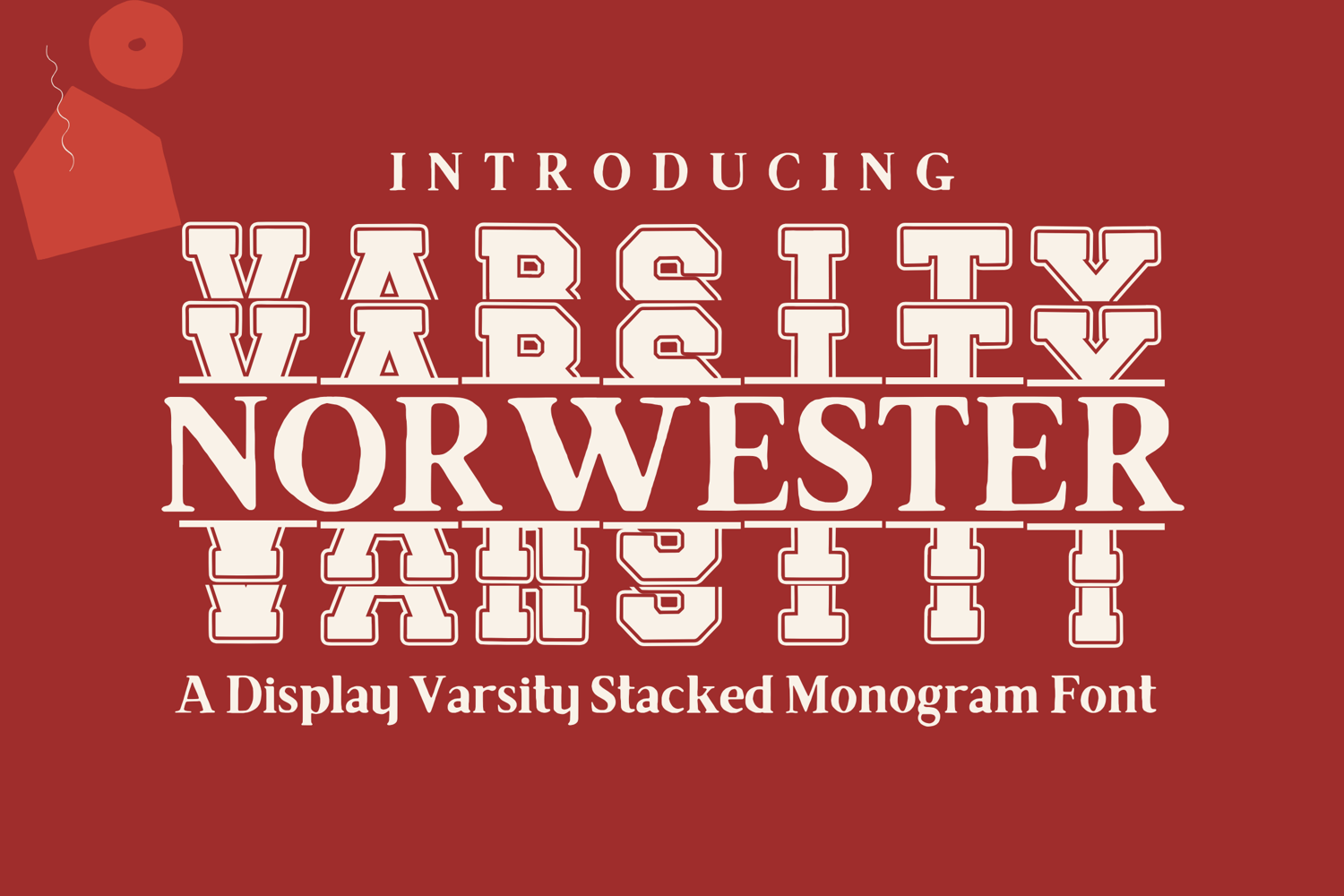
Norwester Varsity Stacked Monogram - Bold Athletic Font
Norwester Varsity Stacked Monogram
Introducing Norwester Varsity Stacked Monogram, a powerful all-caps varsity display font designed for monogram layouts, team initials, and stacked athletic branding. With its condensed block letterforms and strong geometric edges, this typeface brings the classic collegiate sports style into a modern stacked monogram format.
Perfect for creating sports team logos, school merchandise, varsity jackets, event signage, and bold editorial monograms, this font delivers the impact and strength of varsity typography with a sleek stacked presentation.
• All-Caps Varsity Typeface crafted for monograms & stacked layouts
• Bold condensed design with sharp varsity edges
• Uppercase letters, numbers, punctuation & multilingual support
• Optimized for stacked initials and monogram logos
• Sports team logos & monogram initials
• Varsity jackets & athletic merchandise
• College posters, banners & event flyers
• Graduation signage & school branding
• Modern monogram logo designs